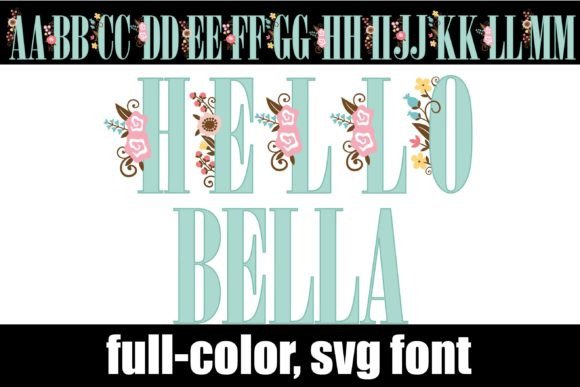
Hello Bella Font: A Summer's Dream in Floral Hues
Unleash your creativity with the Hello Bella font, a vibrant and captivating font family that will bring a touch of spring to your designs. This font is a floral wonderland, featuring a simple serif adorned with delicate summer blossoms. Its alt case of additional colors, accessible through your system's character map, allows you to paint your words in a multitude of hues.